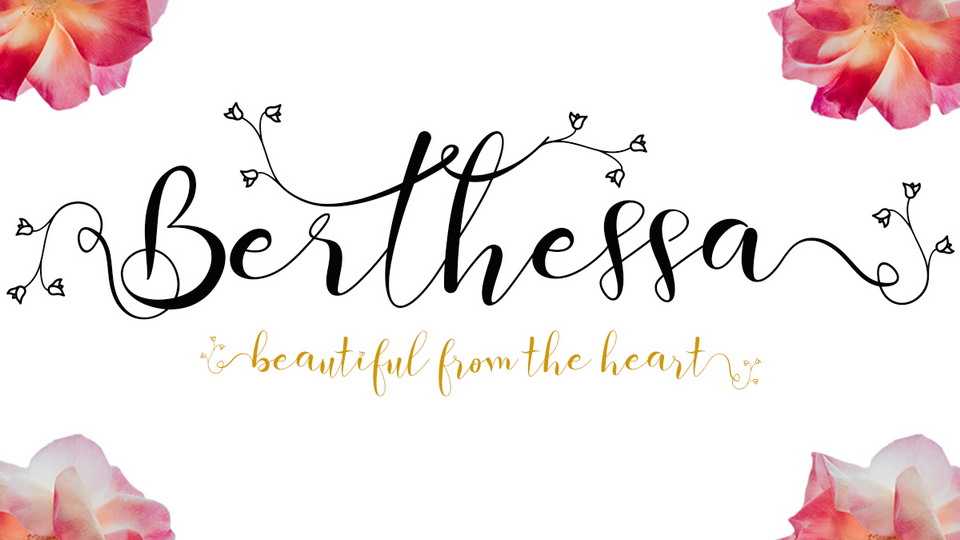
Download Berthessa font, a lovely handwritten script typeface that is lovingly crafted to produce outstanding work. Berthessa is very beautiful and elegant which is suitable for all kinds of your work.